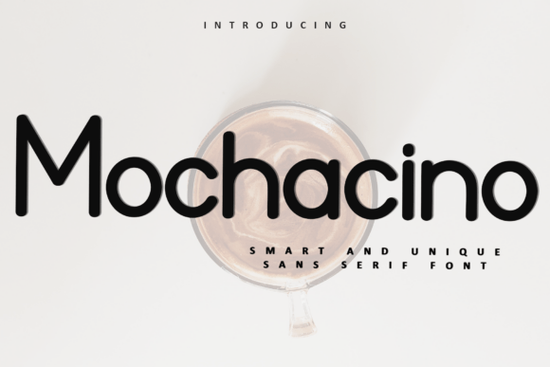
If you're looking for a friendly, hand-drawn sans-serif font that feels warm and inviting especially around the holidays Mochacino Font is a thoughtful choice. It’s not overly ornate, but it carries just enough decorative charm to stand out on greeting cards, gift tags, or small-batch packaging. Unlike some holiday fonts that lean too heavily into snowflakes or candy canes, Mochacino keeps things approachable while still feeling festive. Its rounded shapes and subtle swashes give it personality without sacrificing readability at smaller sizes.
What makes Mochacino different from other holiday fonts?
Mochacino sits comfortably between playful and polished. It’s designed as a sans-serif, but with soft curves and gentle contrast think of it as the cozy sweater of typefaces. Because it’s PUA encoded, you get consistent access to alternate characters, ligatures, and decorative glyphs right in your design app (no need for special software or workarounds). That means if you want a custom “&” or a whimsical capital “S”, it’s just a keystroke away not buried in glyph panels or hidden behind complex OpenType features.
This matters especially if you’re designing for print-on-demand or small-run physical products. You don’t want to spend extra time manually swapping characters or adjusting spacing. With Mochacino, the extras are built-in and intuitive. And because it’s optimized for both digital and printed use, it holds up well whether you’re laser-cutting a wooden tag or printing a 5×7 card on textured paper.
Where does it work best?
Here are a few real-world uses we’ve seen designers and makers get great results with:
- Greeting cards especially ones meant to feel personal, like handwritten notes or family newsletters
- Gift tags and packaging labels pairs nicely with kraft paper, twine, and muted holiday palettes
- Digital stickers and social media graphics works well on Instagram Stories or printable planners
- Small business signage think café chalkboards, boutique window decals, or local market banners
It’s not ideal for long paragraphs or body text like most display fonts, it shines in headings, short phrases, and accents. For longer text, consider pairing it with something clean and neutral, like Brooklyn Font, which shares a similar warmth but offers more versatility for supporting copy.
How does it compare to similar fonts?
If you’ve used RS04 Modern DIY Rhinestone, you’ll notice Mochacino has less sparkle and more quiet charm it’s less about bling and more about nostalgic comfort. Compared to Glavoire Font, which leans elegant and slightly formal, Mochacino feels more relaxed and handmade. None of these fonts compete they serve different moods and moments. Choosing one often comes down to your brand voice or seasonal tone.
For example, if you run a candle shop launching a limited-edition peppermint collection, Mochacino adds just the right amount of cheer without shouting. If you’re designing a New Year’s Eve invitation, its subtle ligatures (“ff”, “fi”, “fl”) help words flow smoothly and look intentionally crafted, not auto-generated.
- ✅ You need a friendly, holiday-adjacent sans-serif not a script or serif
- ✅ You’ll use it mostly for short headlines, tags, or accent text (not body copy)
- ✅ You want built-in alternates and ligatures without complicated setup
- ✅ You’re okay with a font that feels handmade not ultra-polished or corporate
- ✅ You’re designing for both digital and physical outputs (cards, prints, stickers, etc.)
If those match your needs, Mochacino Font is likely a solid fit. Try it first on a simple project like a set of printable gift tags before committing to larger designs. That way, you’ll see how it behaves with your colors, paper stock, and layout style.